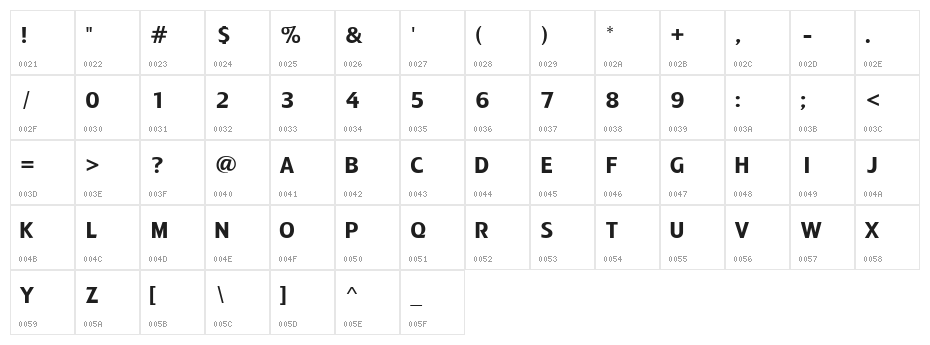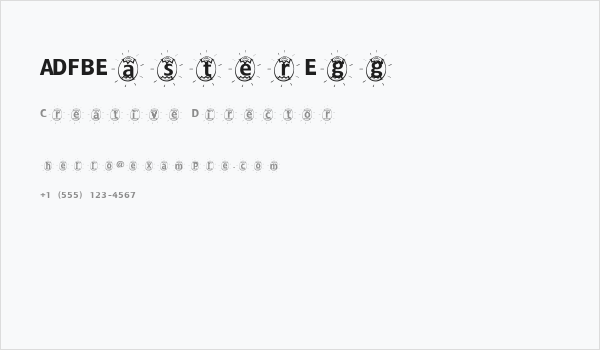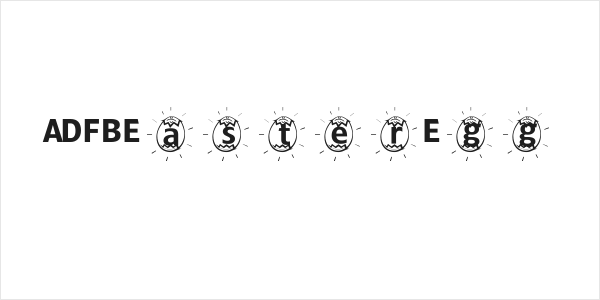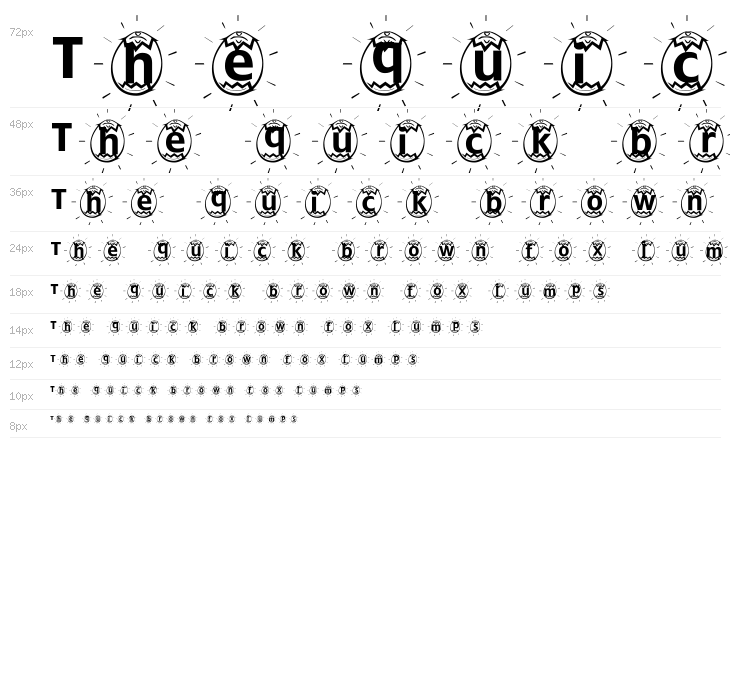
ADFBEasterEgg Font
ADFBEasterEgg Description
This font features a bold and modern sans-serif style with clean, geometric lines. The uppercase letters are strong and assertive, making a powerful statement. The lowercase letters are encased in a decorative circular design, adding a unique and playful touch. Numbers are bold and clear, ensuring readability. The special characters maintain the boldness of the font, providing consistency across all elements. This font is versatile, suitable for both digital and print media, and can be used to create impactful designs.
| Proposed Projects | Ideal for branding, advertising, poster design, and digital media projects that require a strong visual impact. |